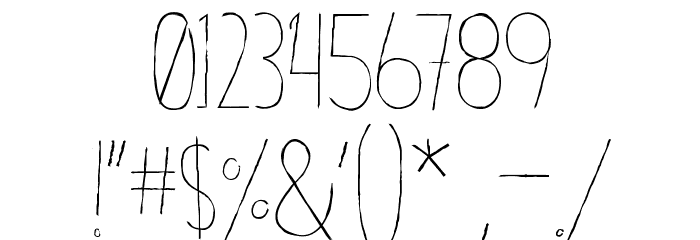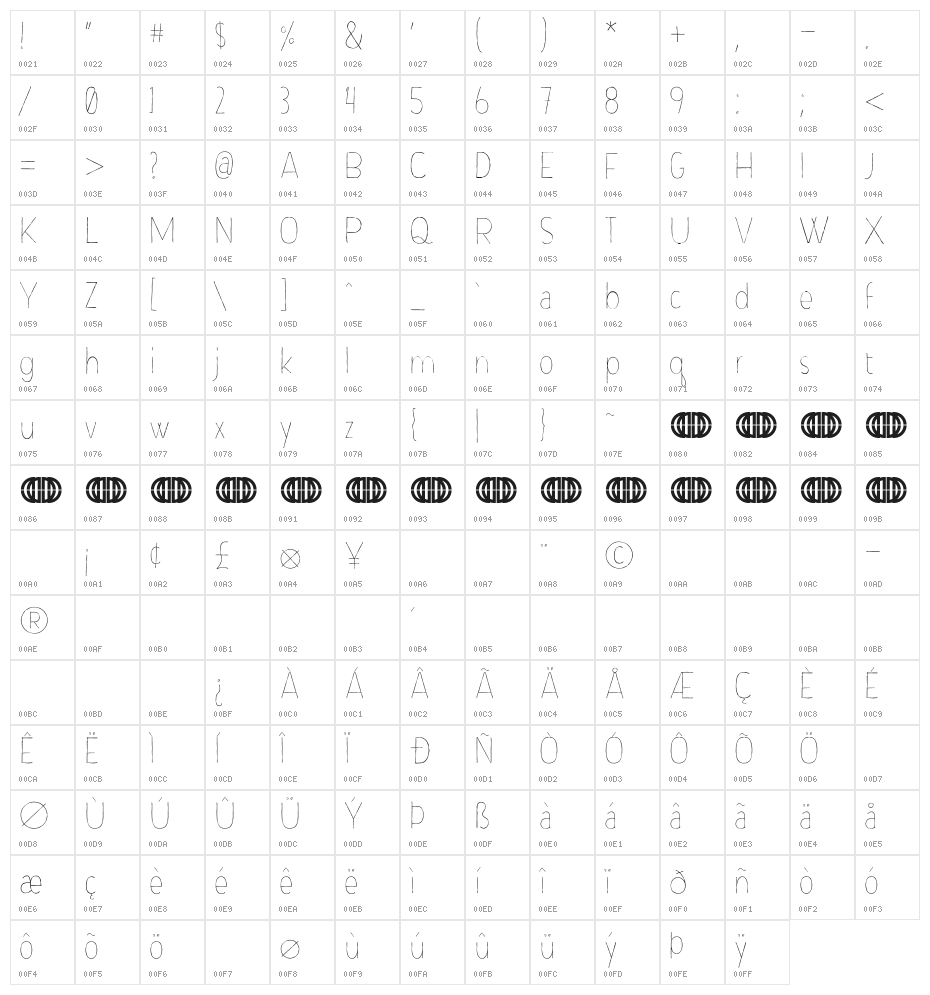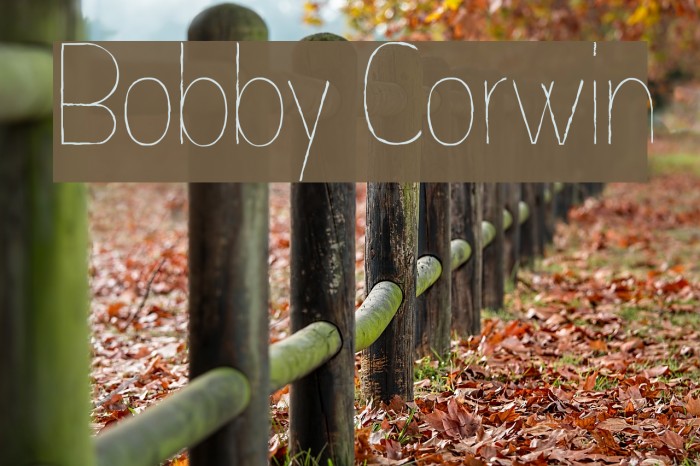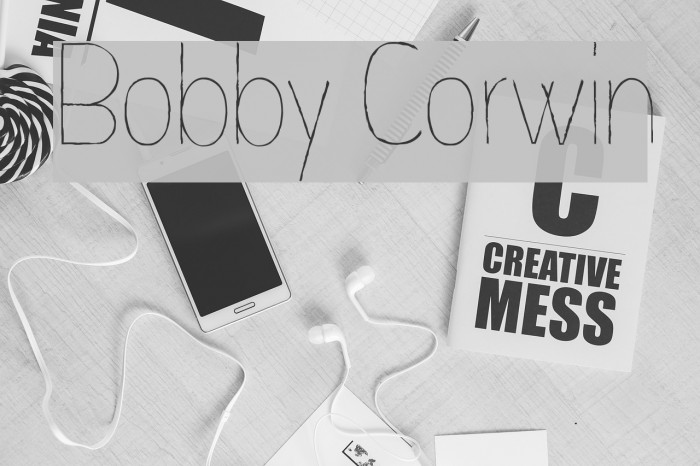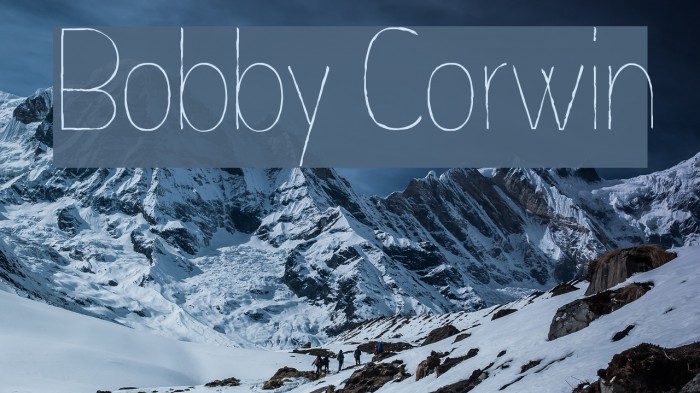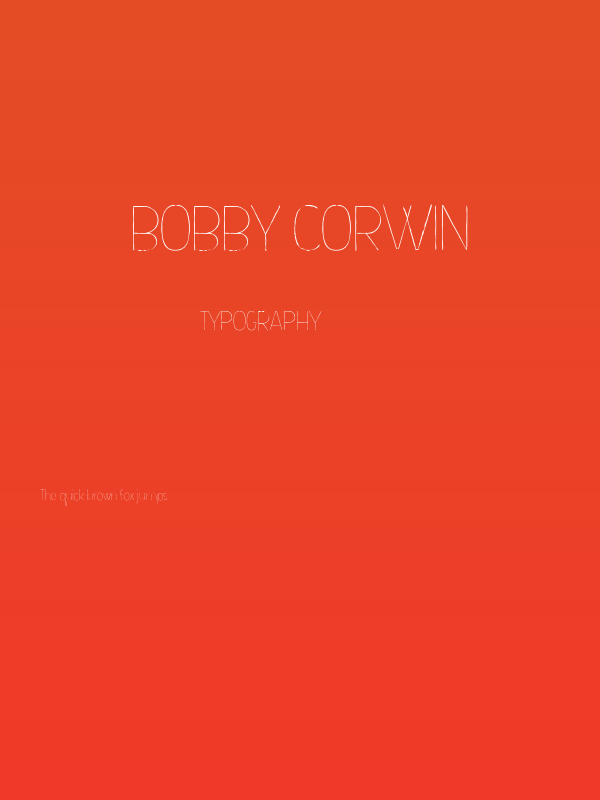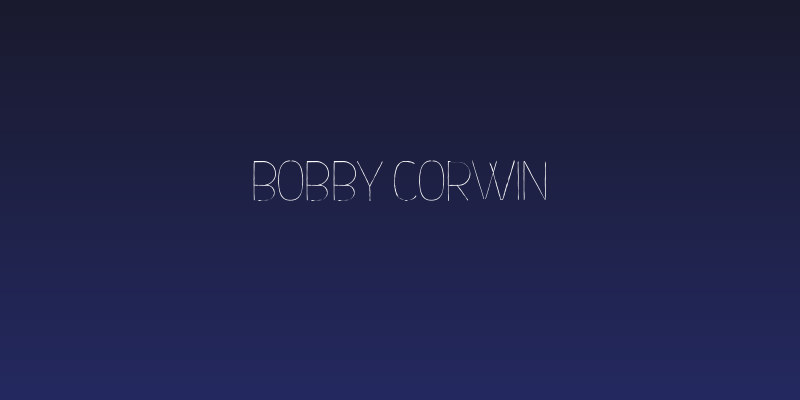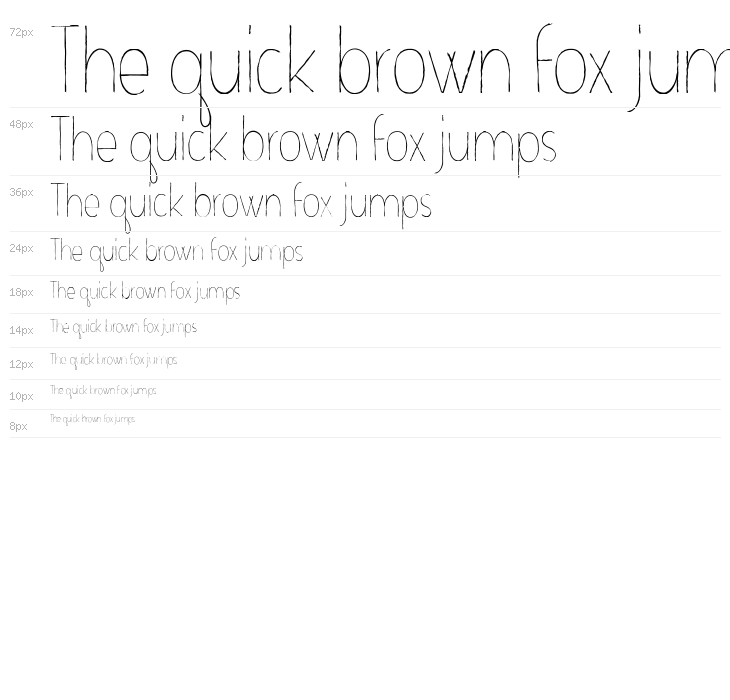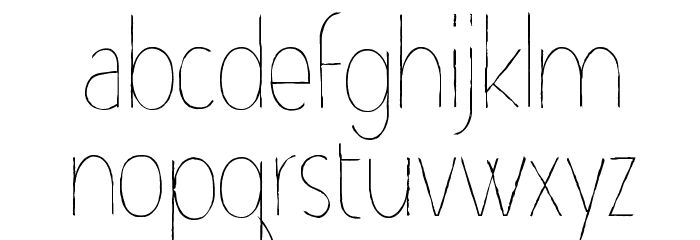
Bobby Corwin Font
Bobby Corwin Description
This font features a unique, hand-drawn aesthetic with thin, slightly irregular strokes that give it a whimsical and artistic feel. The characters are tall and narrow, with a consistent height across both uppercase and lowercase letters. The numerals and special characters maintain the same quirky style, adding to the font's playful nature. The overall design is clean yet distinctive, making it suitable for creative projects that require a touch of individuality.
| Proposed Projects | Ideal for artistic projects, children's book illustrations, greeting cards, and creative branding. |